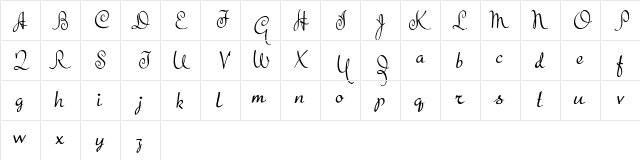
Complete The Beat Goes On Regular glyph index. Displaying only characters natively supported by The Beat Goes On Regular font.
The Beat Goes On is a composed and adaptable typeface that performs quietly and consistently across a wide range of design contexts.